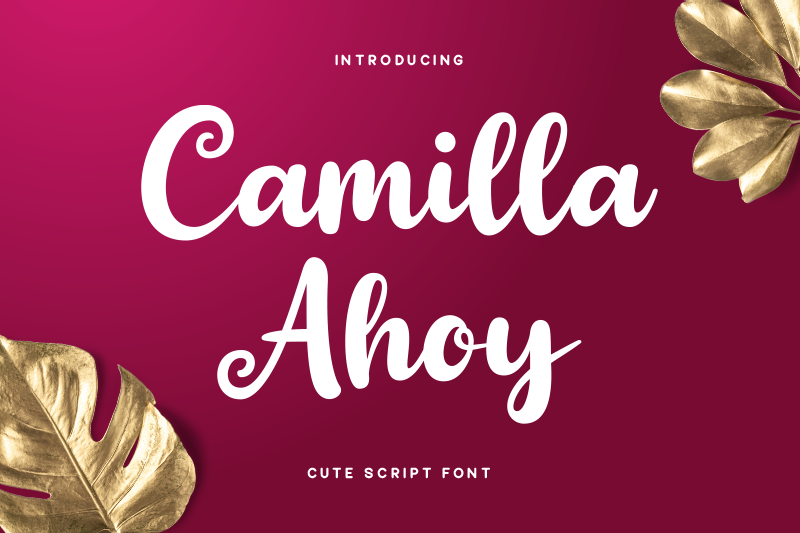
Preview and download Camilla Ahoy Font. Created by Akhmad Reza Fauzi in Script Various styles with Free for personal use license.
This font is for PERSONAL USE ONLY! Camilla Ahoy is an equally fun and cool handwritten font with a unique style. --------------------------------------------------------- Any DONATION will be appreciated https://www.paypal.me/akhmadrezafauzi Purchase COMMERCIAL LICENSE: https://grezlinestudio.com/product/camilla-ahoy-font/ Visit my store for special price and discount : https://grezlinestudio.com If you have any questions, feel free to contact me : grezline.studio@gmail.com |